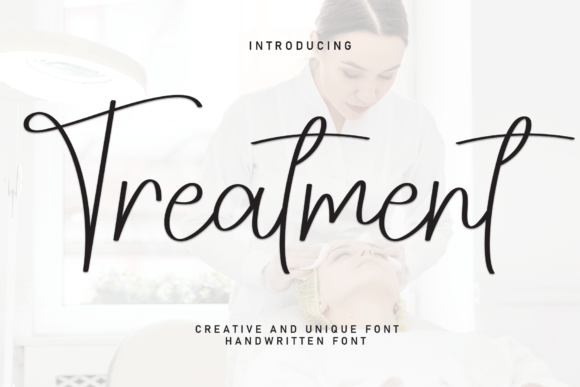
Prepare to be captivated by Treatment Font, an enchanting script font that will unleash your creativity and transform your designs into mesmerizing works of art. Step into a realm of vintage charm and elegance, where each letter dances with grace and sophistication. Let your imagination soar as you explore the endless possibilities that await you with this font, meticulously crafted to evoke a sense of nostalgia and timeless beauty.
Immerse yourself in a world of vintage aesthetics, where Treatment Font reigns supreme. Its carefully crafted characters, reminiscent of days gone by, will add an air of sophistication to your logos, branding, and social media posts. Picture your designs adorned with this font, capturing the essence of classic elegance and leaving an unforgettable impression on your audience.
Express your artistic flair with Treatment Font, the perfect companion for your DIY projects. Let your creativity flow freely as you create stunning invitations, greeting cards, and home décor items that exude a touch of vintage charm. This font is your gateway to a world of endless possibilities, where every project becomes a masterpiece.
Unleash your inner artist and let Treatment Font guide you on a journey of creative exploration. Its versatility knows no bounds, making it the ideal choice for a wide range of projects. From eye-catching logos and branding to captivating social media posts and heartfelt invitations, this font will transform your designs into works of art that resonate with your audience.